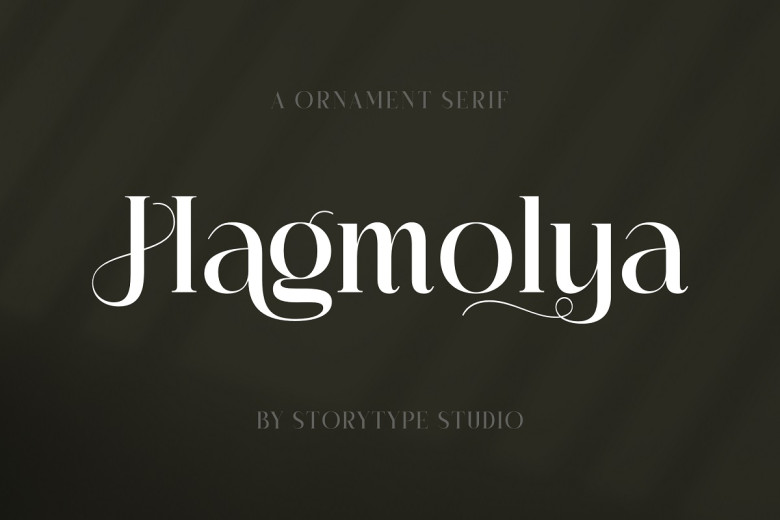
Hagmolya Font
Hagmolya Font, created by Storytype, A modern and classic serif font that has own unique style & modern look. This typeface is perfect for an elegant & luxury logo, book or movie title design, fashion brand, magazine, clothes, lettering, quotes, and so much more.
Hagmolya Serif Font